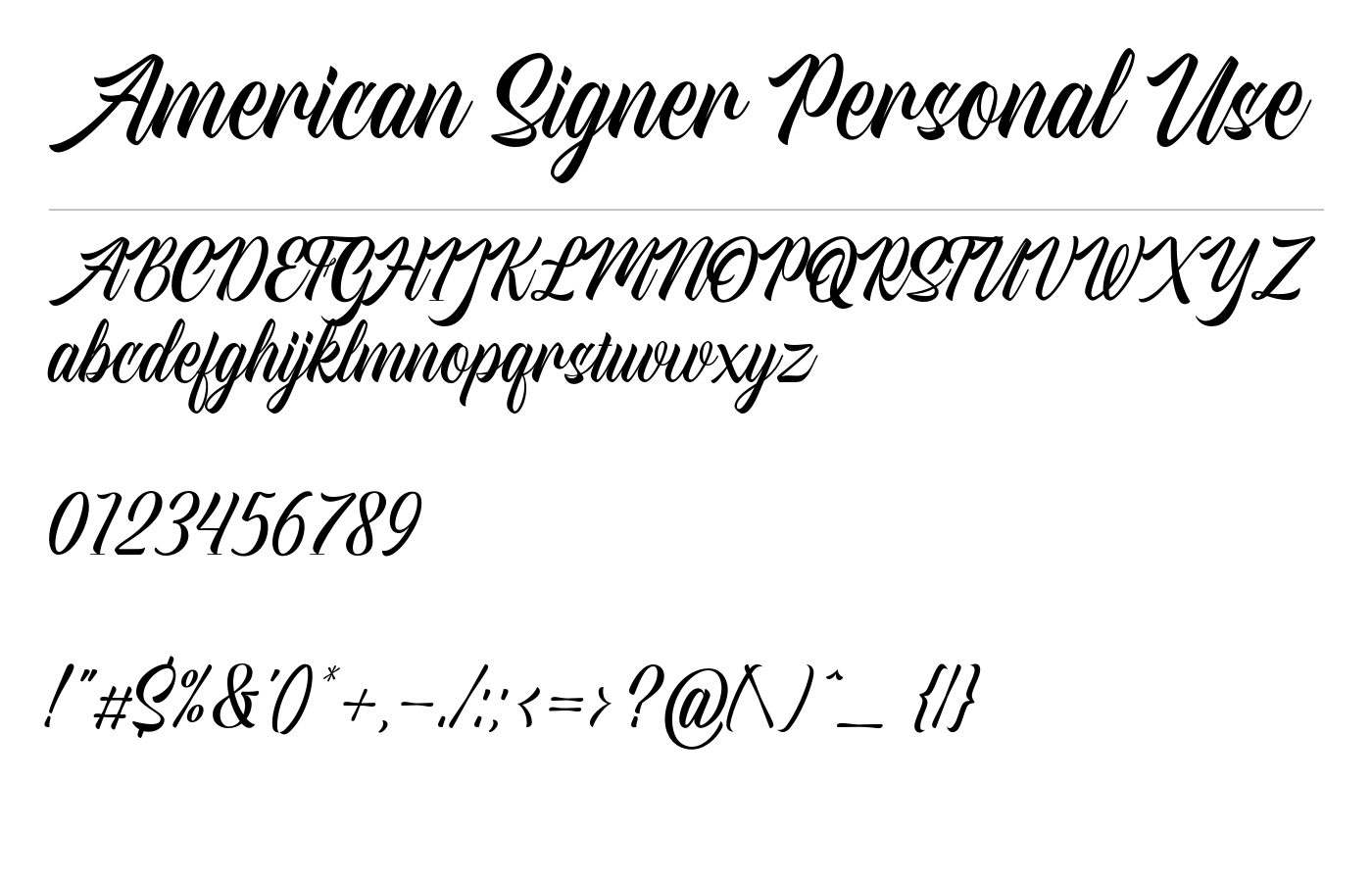
American Signer Personal Use is a graceful script font that mimics elegant, flowing handwriting with a slightly condensed style and moderate stroke contrast. Its smooth, calligraphic curves and connected characters give it a refined yet approachable personality, making it ideal for invitations, branding, and any project seeking a stylish, personal touch. This font works best in headlines and decorative text where its expressive flair can truly stand out.
American Signer Personal Use Font
About American Signer Personal Use Font
| Font family | American Signer Personal Use Font |